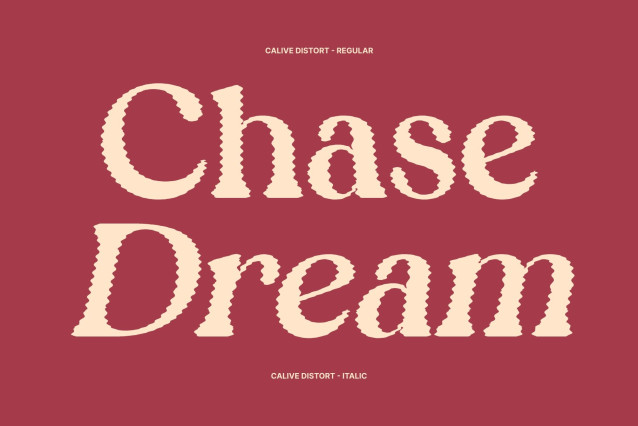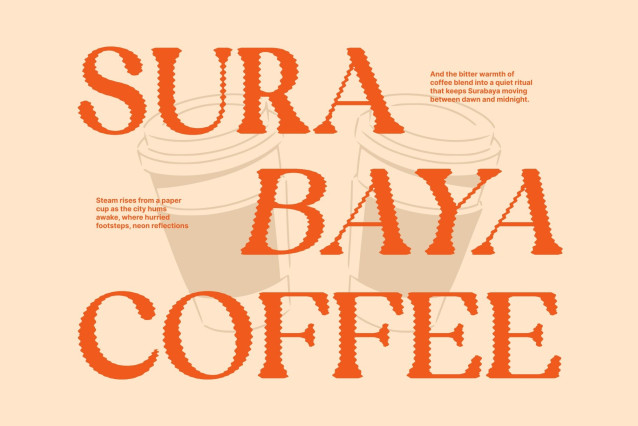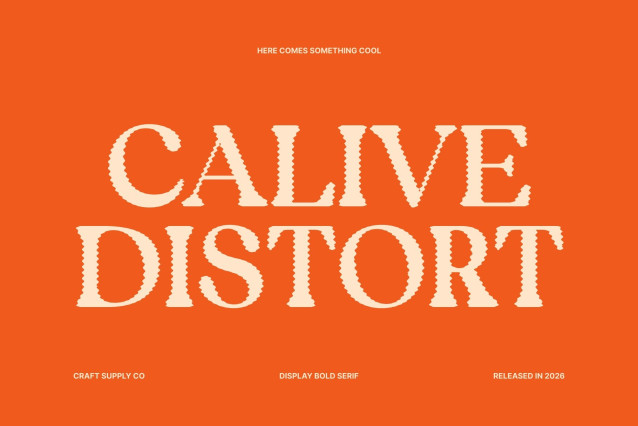
Calive Distort Font
Calive Distort – Soft Serif Font: Nostalgic Warmth with a Melting Twist
Rounded Serif with Distorted Character
This font reimagines a soft, rounded serif by adding a gentle melting distortion that enhances its nostalgic personality. The original warm curves and friendly shapes remain at the heart of the design, while fluid edges introduce a modern, artistic expression. This blend creates a typeface that feels comforting, retro, and visually unique.
Soft Melting Details for Expressive Warmth
The distort style subtly reshapes the edges of each letter, creating a liquid-like effect that feels organic and inviting. This soft distortion amplifies the font’s nostalgic charm while adding movement and contemporary appeal.